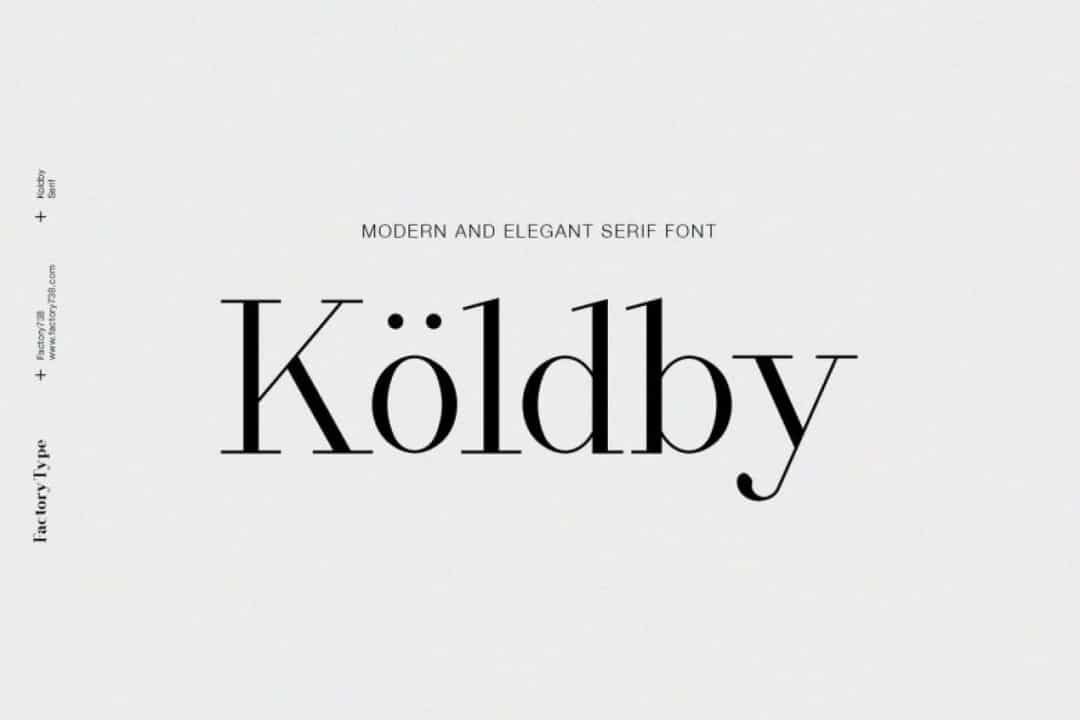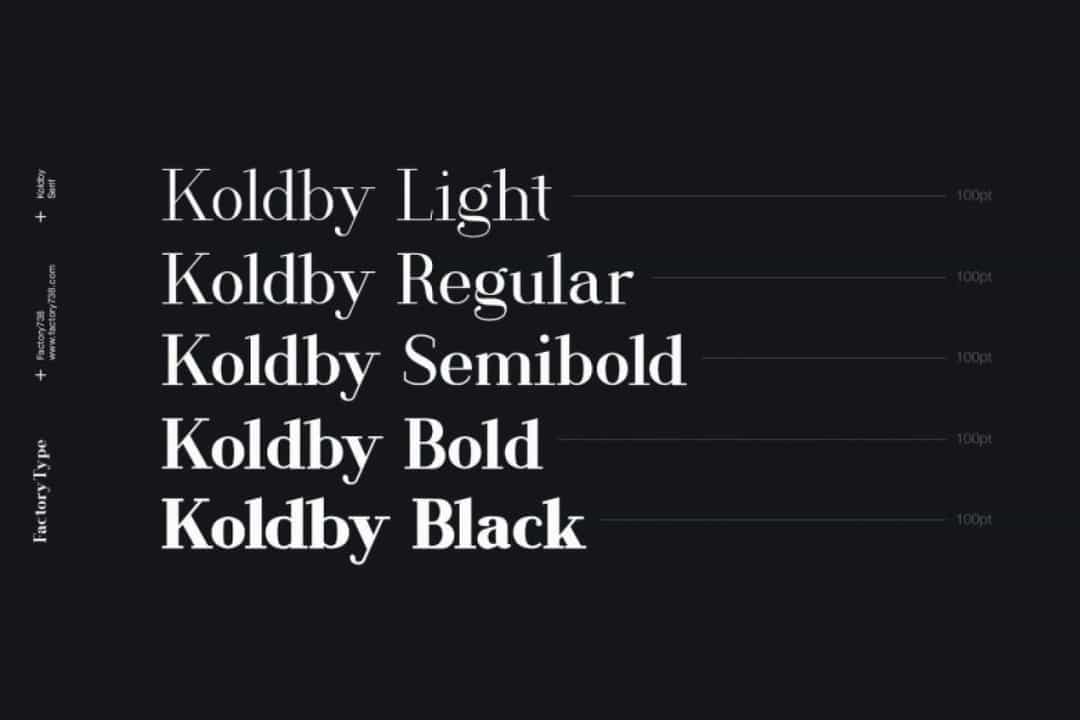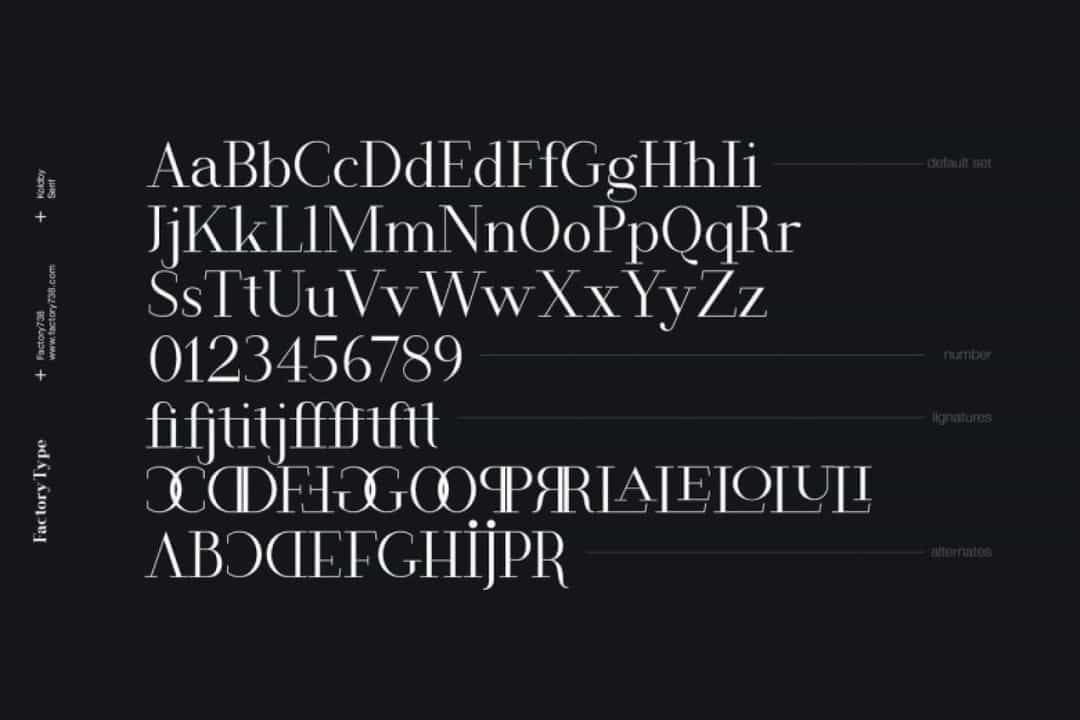
Koldby is a modern sophisticated serif font family that blends classic and modern elements for an eye-catching design. A range of weight options provides flexibility when finding the ideal font tone for your work.